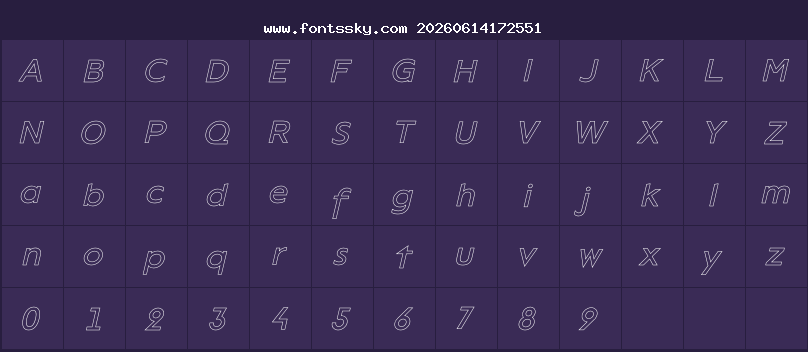
• Font Name: Lack Line
• Full Font Name: Lack Line Italic
• Designer: Adrien Midzic
About Lack Line.otf
Lack Line.otf is a modern, elegant sans-serif font designed for ultimate readability and visual harmony. Perfect for branding, headlines, web design, and print materials.